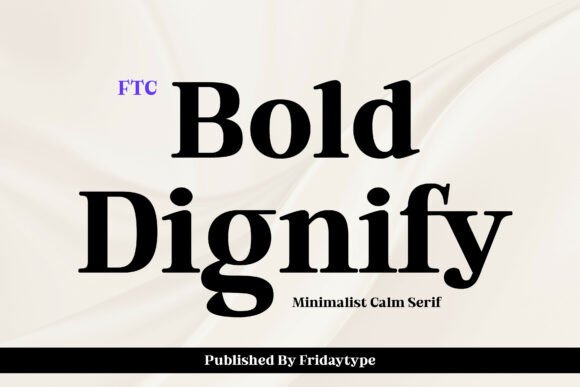
The Power of Bold Dignify: Elevate Your Designs with Confidence
I’ll never forget the time I was working on a high-stakes branding project for a luxury client. The goal was to create a sophisticated and authoritative visual identity that would resonate with their target audience. As I scrolled through font after font, nothing seemed quite right – either too flashy, too bland, or just plain overused. That’s when I stumbled upon **Bold Dignify**, a serif font that instantly caught my eye. Its bold and confident personality was exactly what I needed to make a lasting impression.
First Impressions: A Designer’s Honest Review
What I Love About Bold Dignify ✨
- ✅ Clean and Minimalistic Design: Bold Dignify’s simple yet refined forms make it perfect for modern editorial layouts and branding projects.
- ✅ Balanced Elegance and Strength: This font strikes the ideal balance between calm elegance and charismatic strength, making it versatile for various design purposes.
- ✅ Exceptional Legibility: Even at smaller sizes, Bold Dignify remains clear and readable, ensuring your message gets across effectively.
- ✅ OpenType Features: With access to a range of OpenType features, glyphs, and stylistic alternates, you can customize your text to fit your design vision.
While Bold Dignify is an excellent font, there are a few minor considerations to keep in mind:
- 🤔 Limited Condensed Versions: If you need a super-condensed version for tight spaces, you might find Bold Dignify’s offerings a bit limited.
- 🤔 Requires Careful Kerning: As with any font, especially at larger sizes, you’ll want to pay attention to kerning to ensure optimal readability and aesthetics.
The Story Behind Bold Dignify: Designer Inspiration
Bold Dignify was crafted with the modern designer in mind. Its creator aimed to produce a font that embodies both confidence and elegance, perfect for making a statement without overwhelming the senses. The design process involved balancing strong, bold lines with refined details, ensuring the font could be used across a variety of projects, from luxury branding to editorial layouts.
Q: What makes Bold Dignify suitable for branding projects?
A: Bold Dignify’s bold and confident personality, combined with its clean and minimalistic design, makes it an excellent choice for branding. It conveys authority and sophistication, essential qualities for a brand looking to make a strong impression.
Q: Can I use Bold Dignify for body text?
A: While Bold Dignify excels in headlines and titles, its legibility at smaller sizes might be a concern for extensive body text. It’s best used for headings and supporting text where its impact can shine.
Q: Does Bold Dignify support OpenType features?
A: Yes, Bold Dignify supports OpenType features, including glyphs and stylistic alternates. This allows for a high degree of customization to fit your specific design needs.
Q: Is Bold Dignify suitable for digital use?
A: Absolutely. Bold Dignify’s clear and refined design makes it well-suited for digital applications, including websites, digital magazines, and social media graphics.